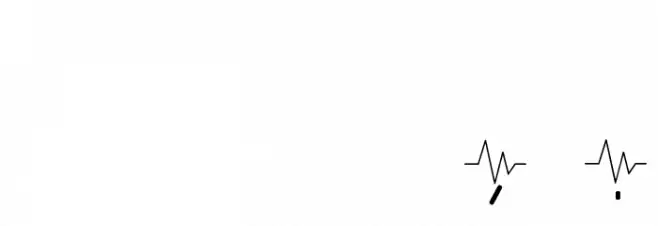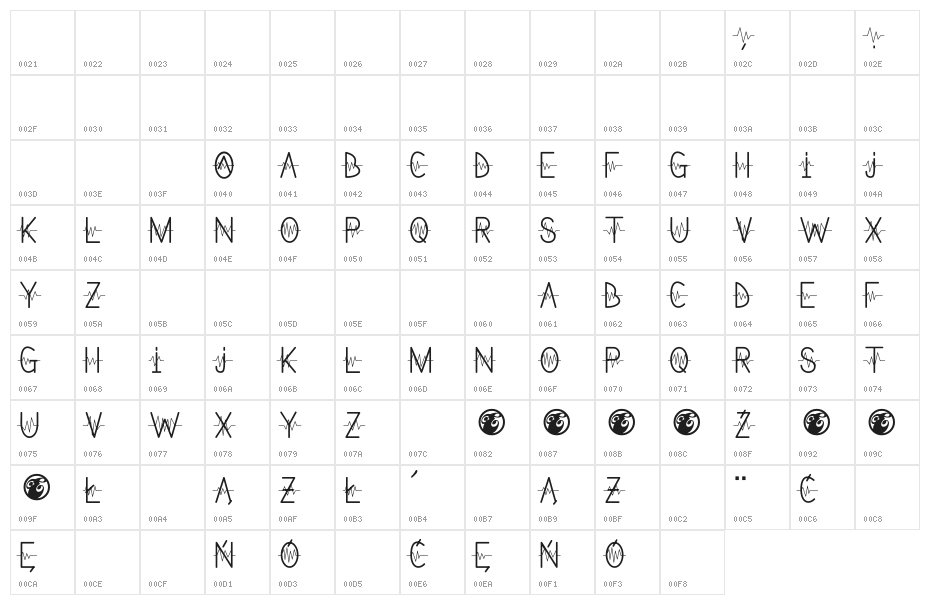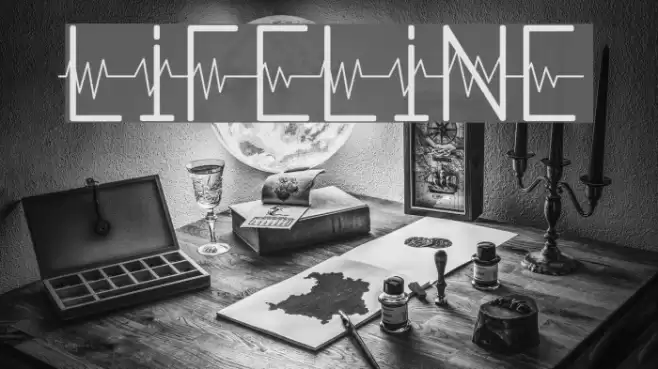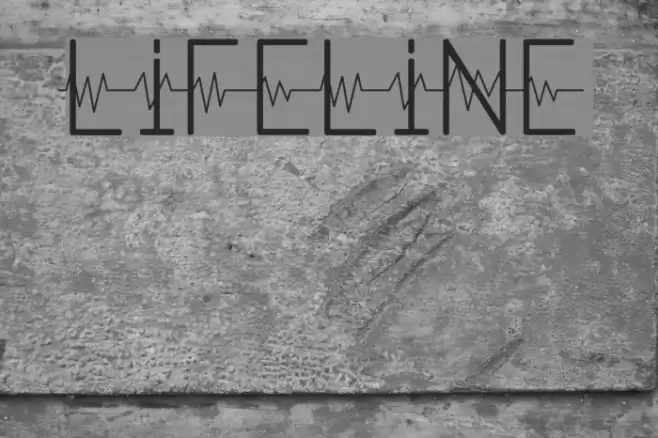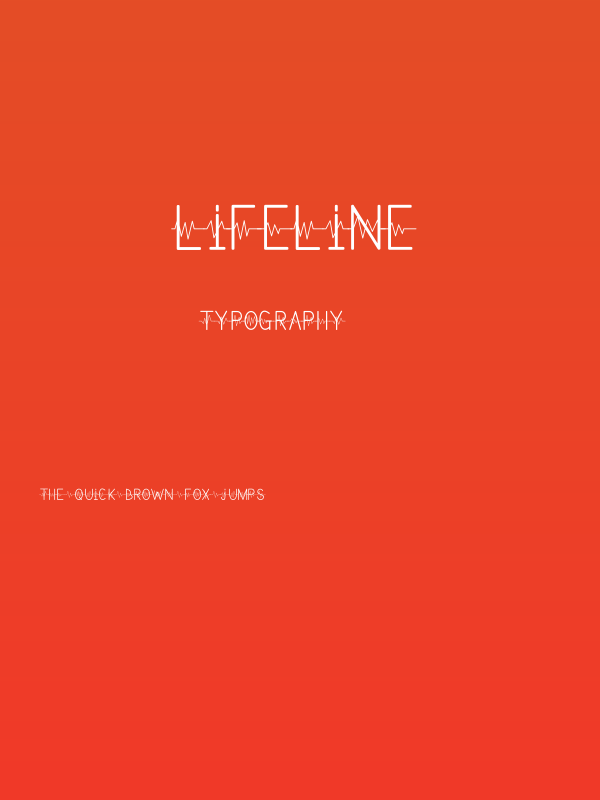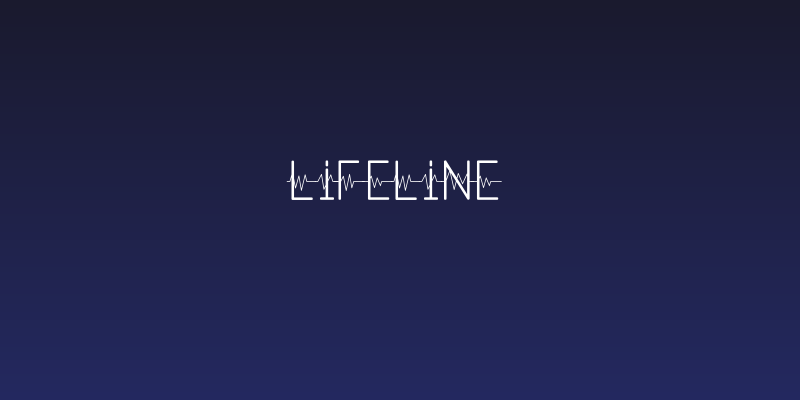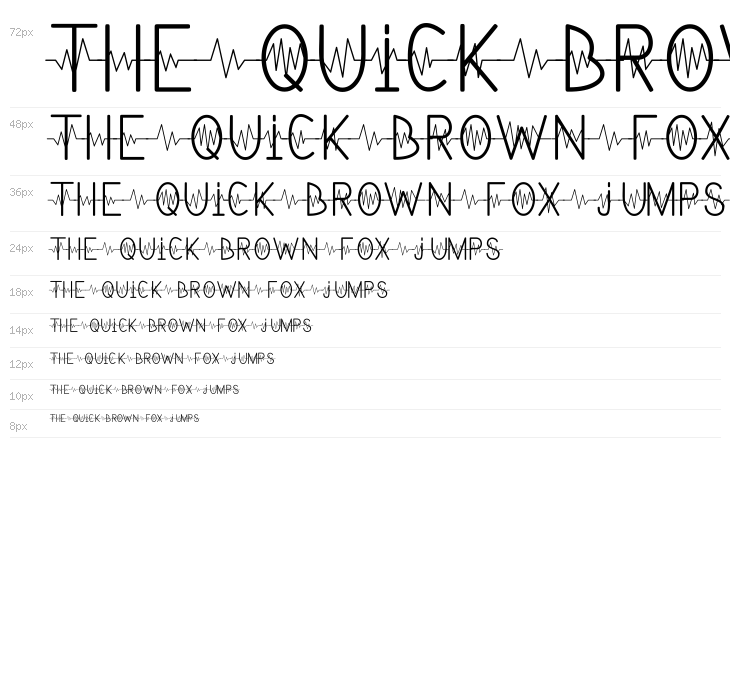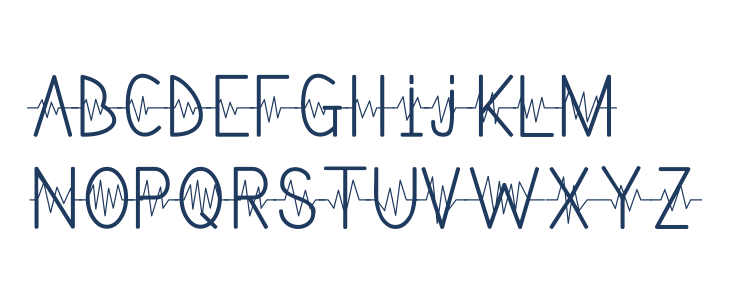
Lifeline Font
Lifeline Description
This font features a unique design where each character is intersected by a stylized heartbeat line, creating a dynamic and energetic appearance. The letters are uppercase and maintain a consistent height, with clean, geometric lines that give a modern and technical feel. The heartbeat motif adds a sense of rhythm and movement, making it stand out as a decorative element. This font is ideal for projects that require a medical or health-related theme, or for designs that aim to convey vitality and energy. The combination of the heartbeat line with the structured letterforms creates a visually striking effect that is both innovative and memorable.
| Use Case | Logos, Headlines |
| Proposed Projects | Ideal for health-related branding, medical posters, fitness campaigns, and dynamic logo designs. |